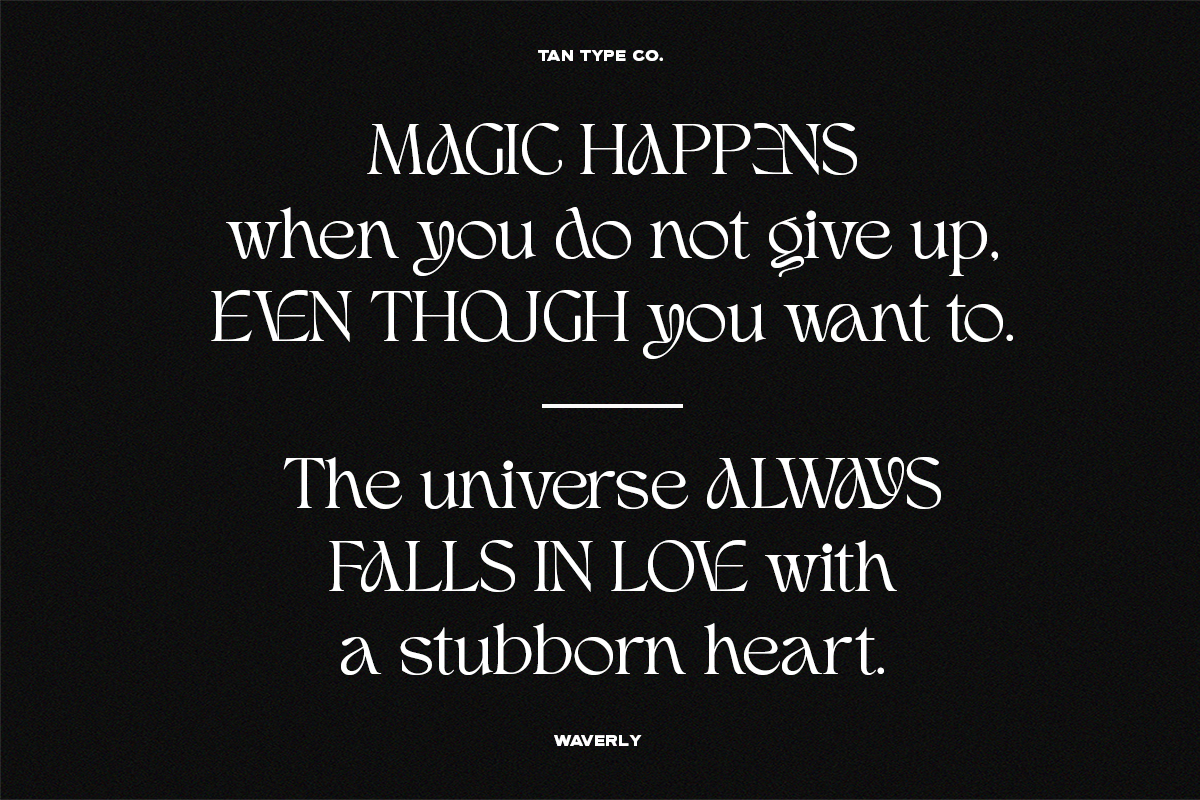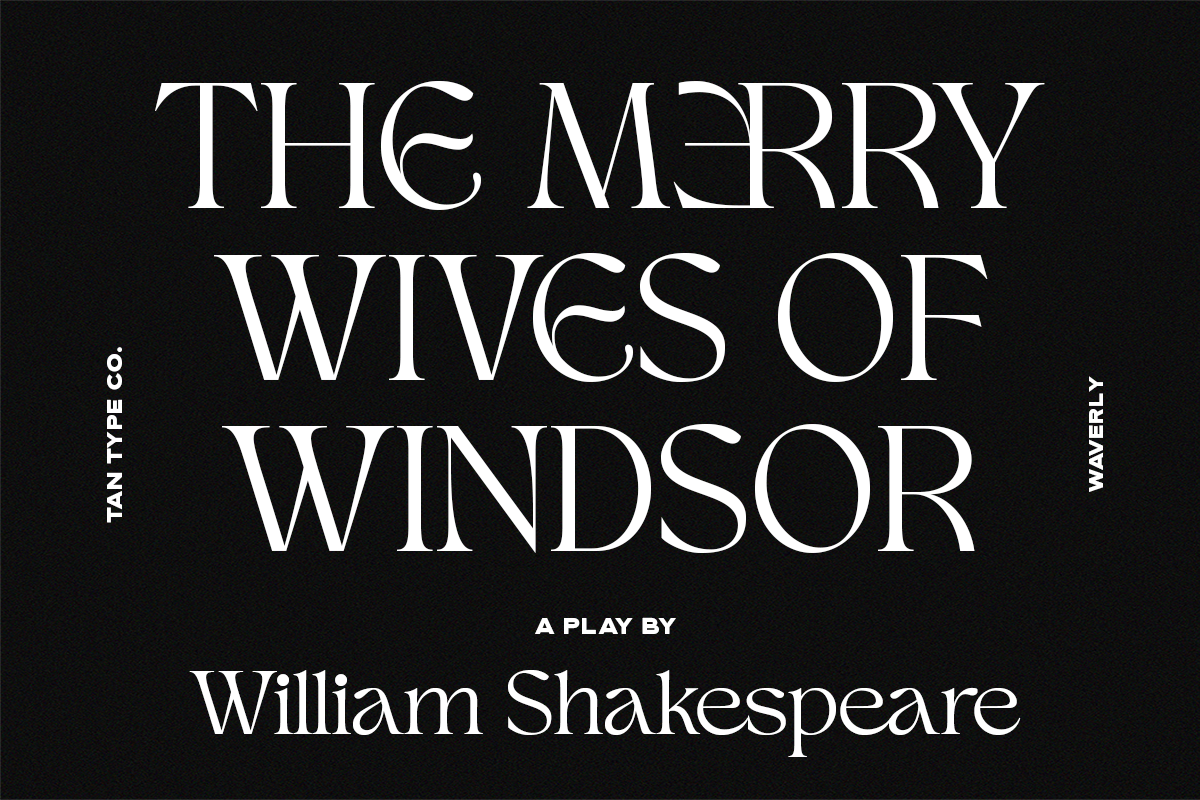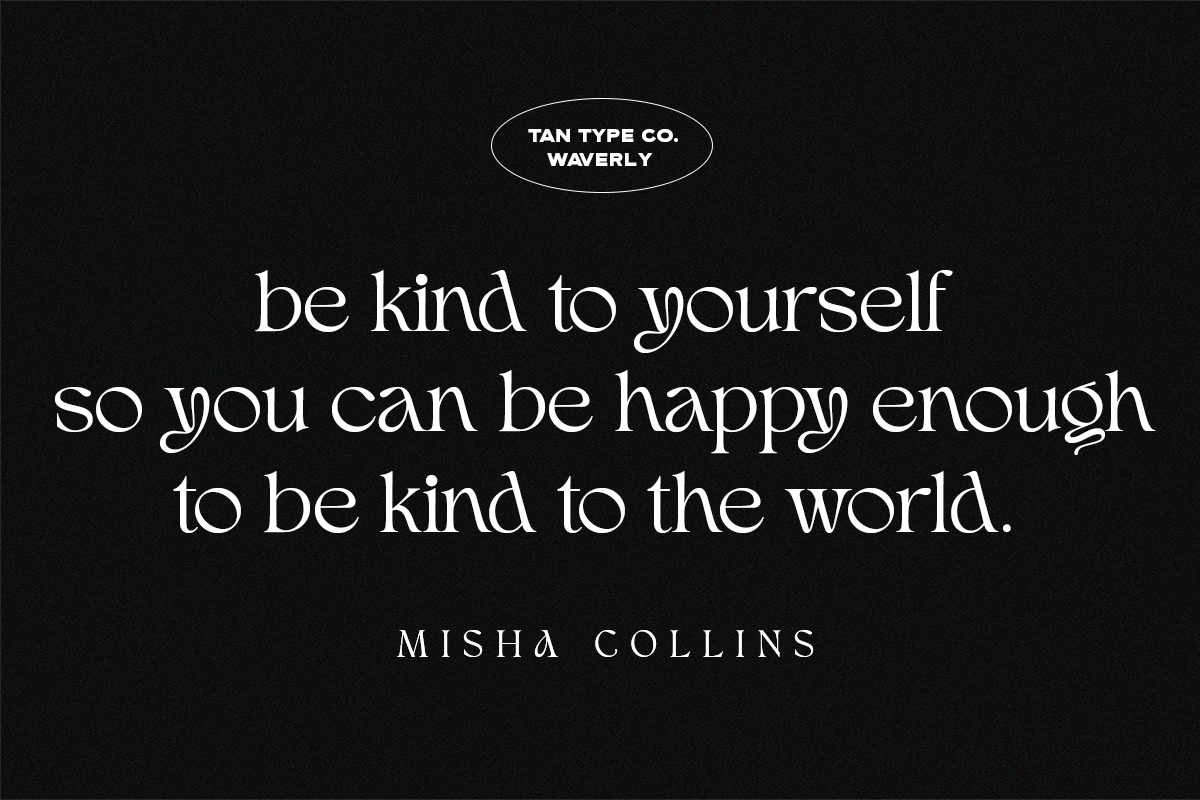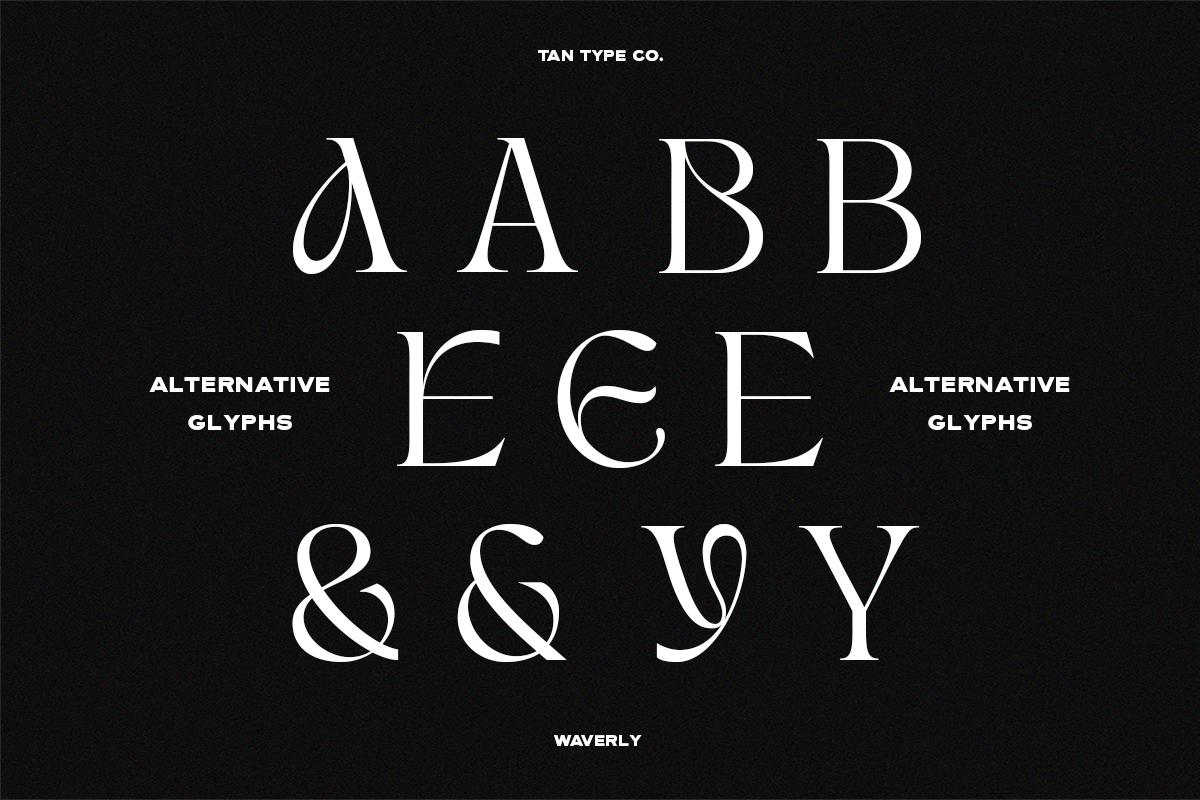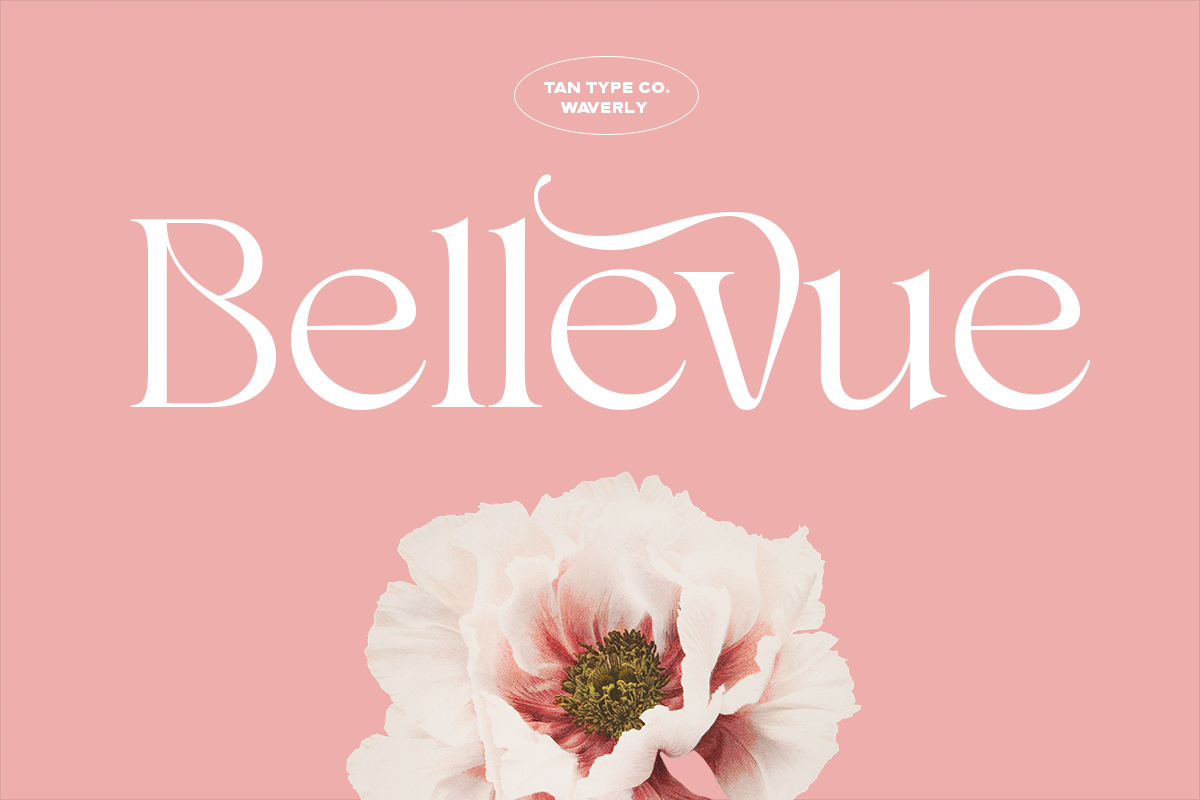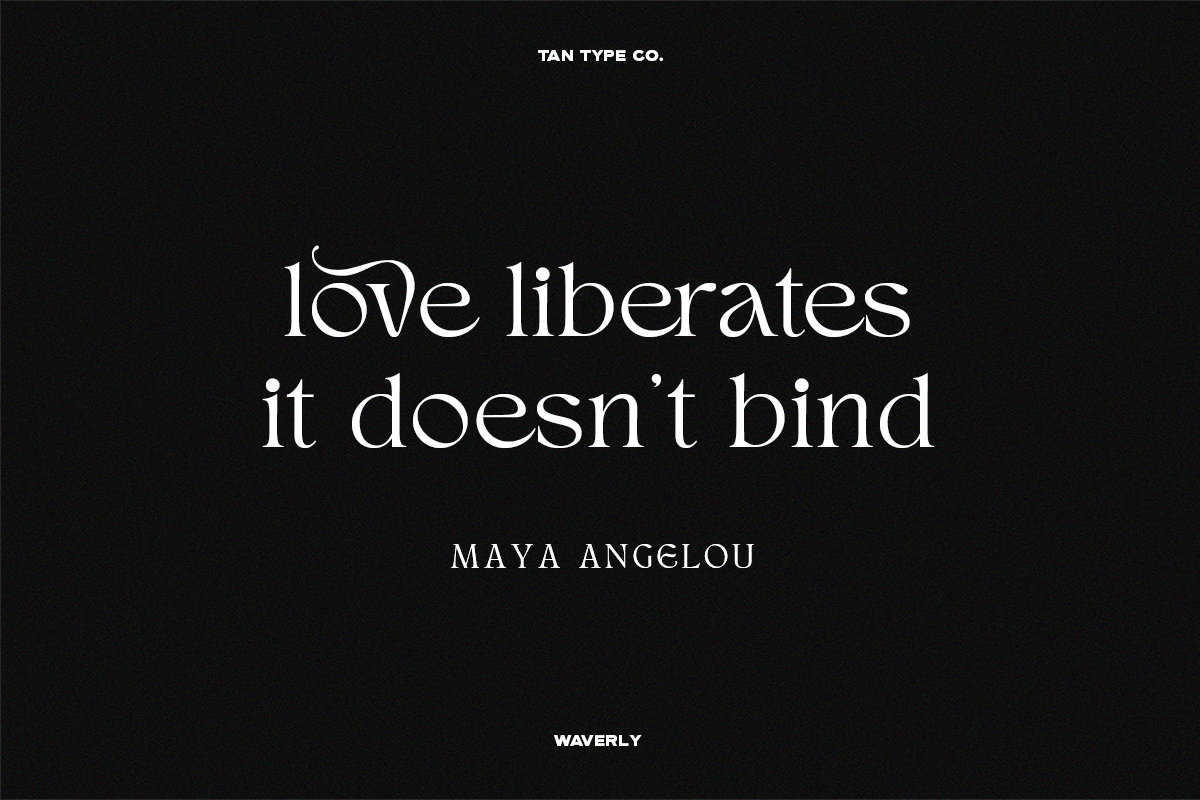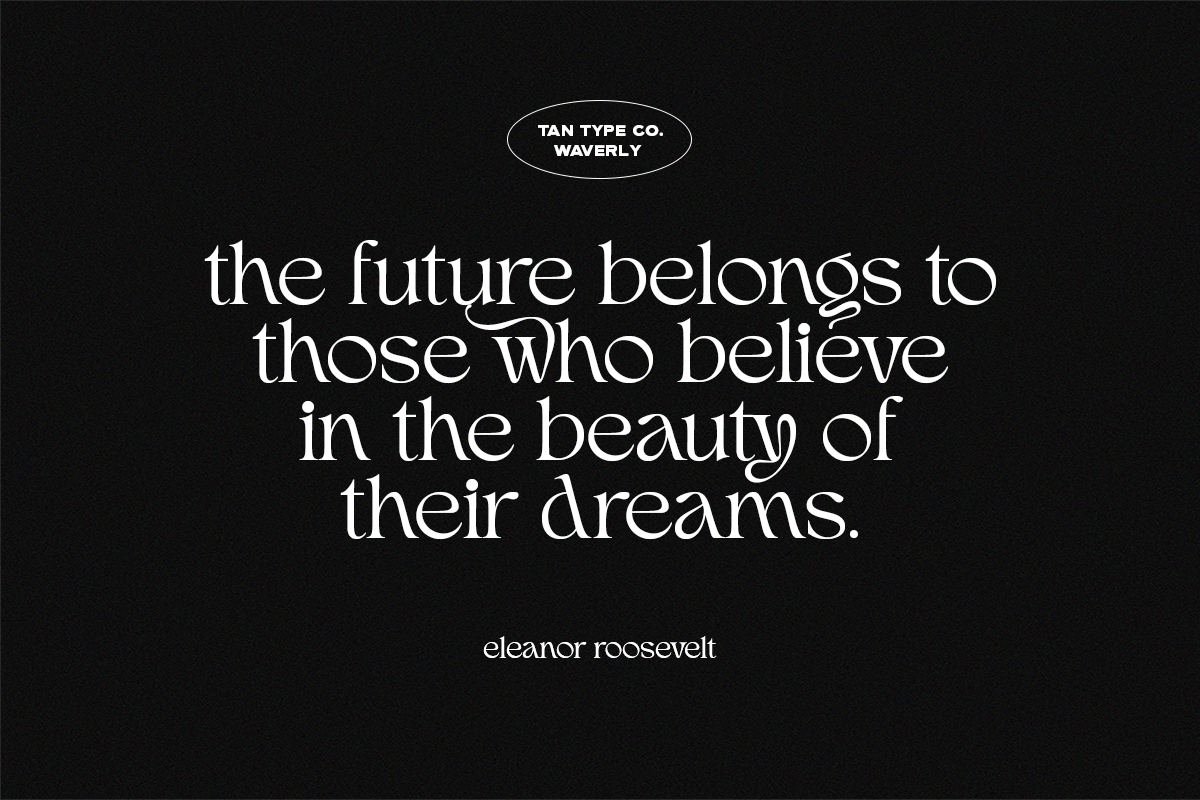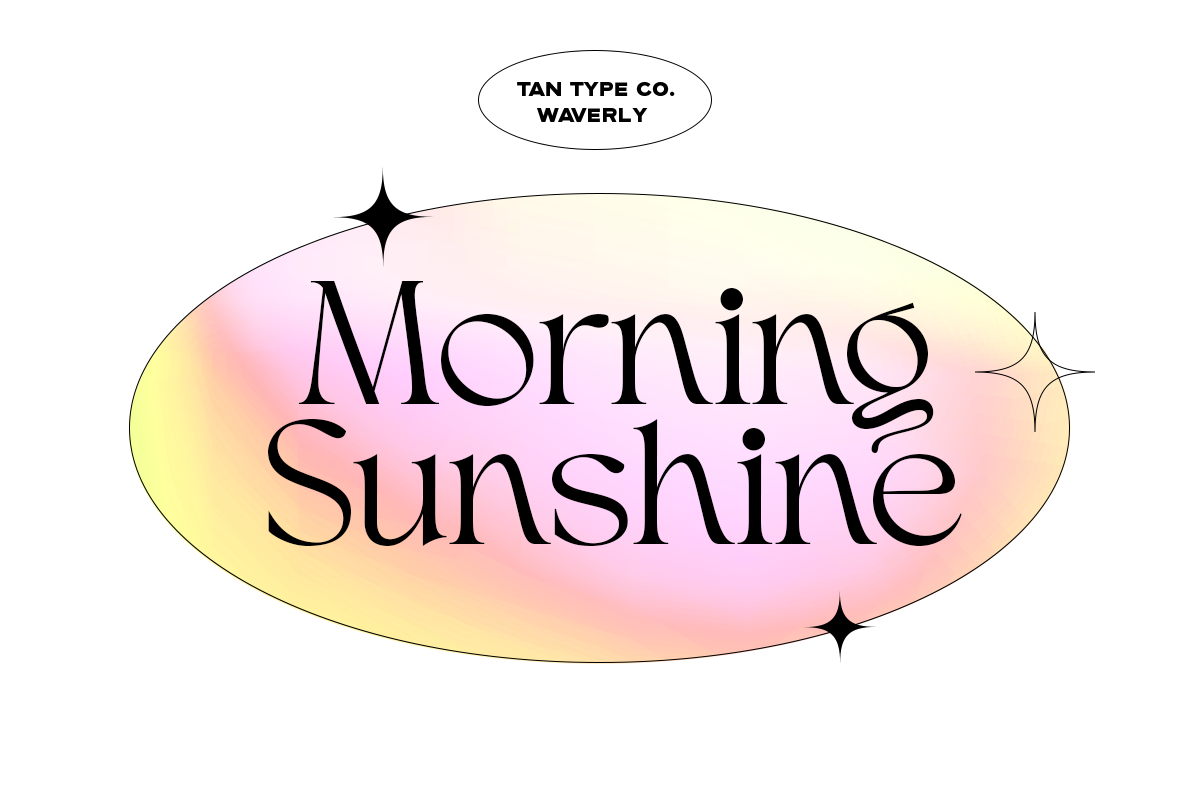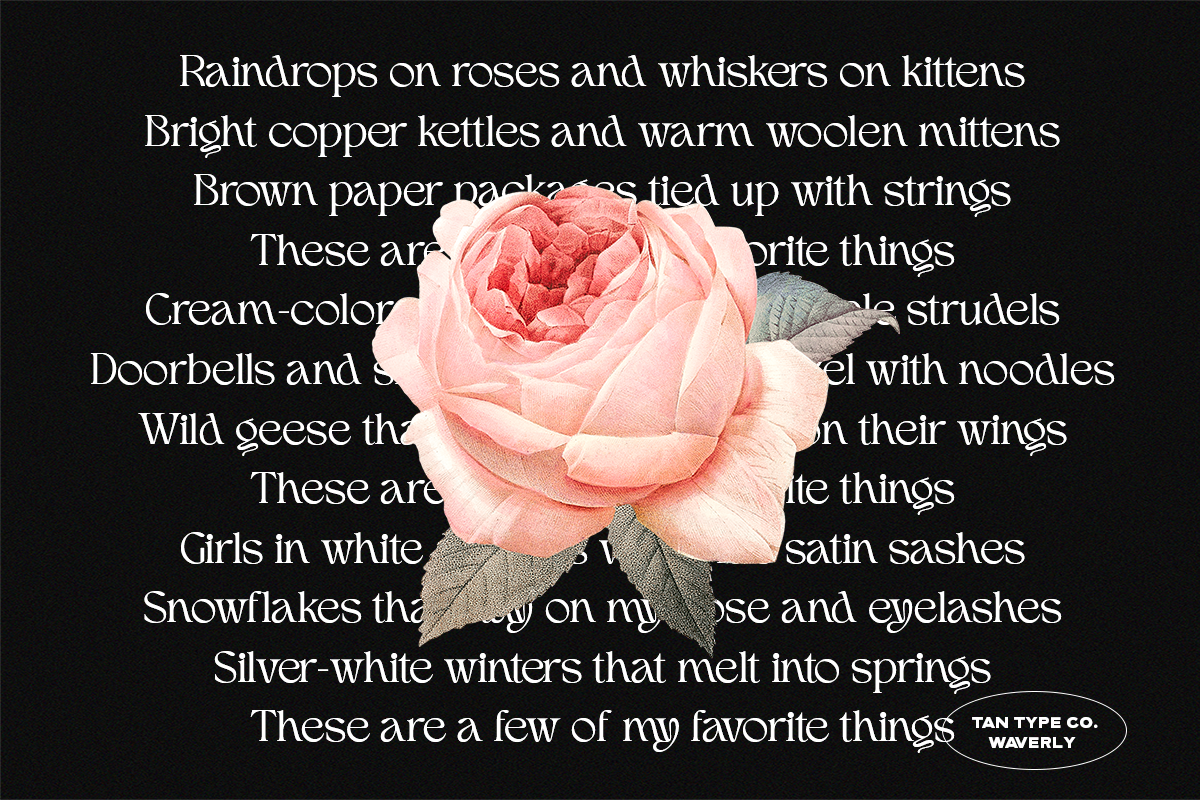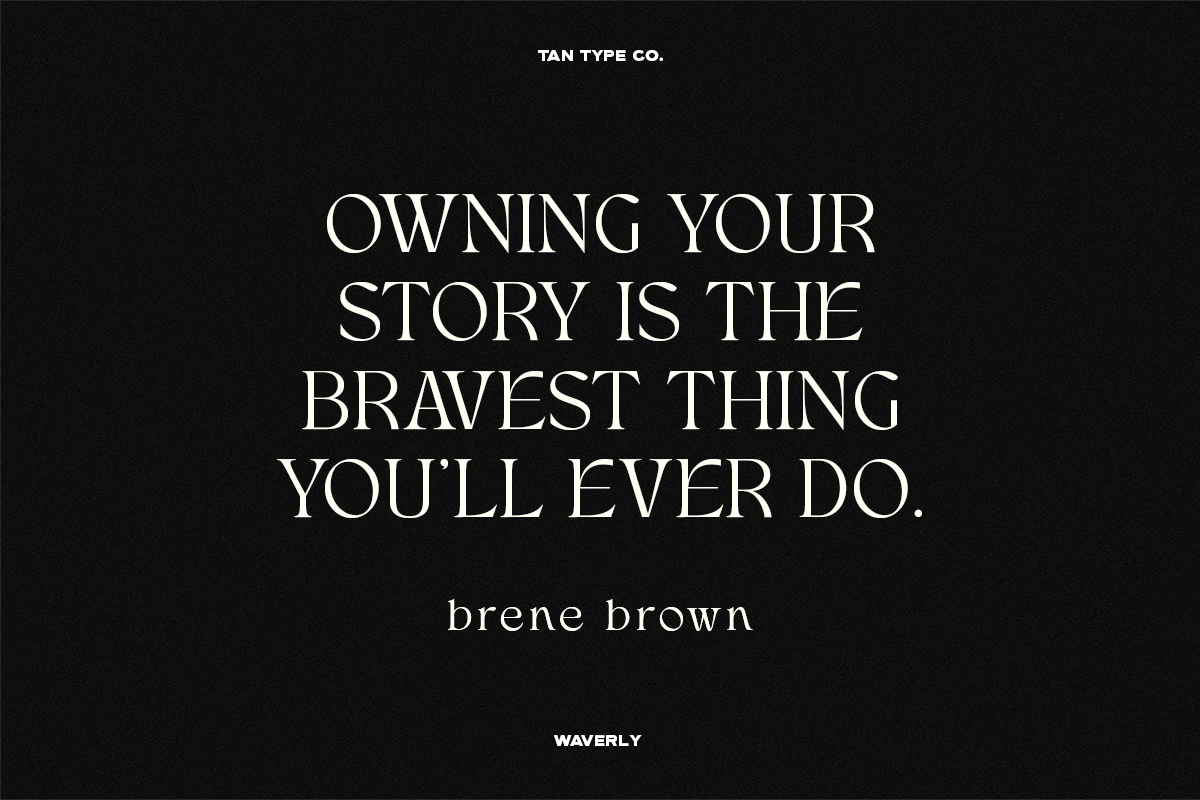
TAN - WAVERLY is an elegant serif typeface with lots of ligatures and choices of glyphs. Its filled with subtle quirks while still maintaining its graceful shapes.